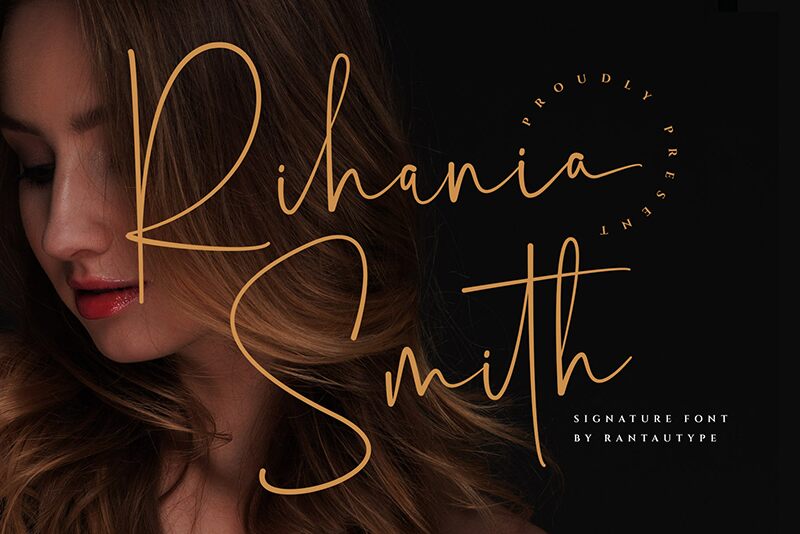
Rihania Smith
Rihania Smith font by RantautypeStudio is a light handwritten font that mimics a signature style with an organic flow and a personal touch. It carries elegant minimalist letters with curved outlines and thin strokes. Its modern appearance makes it capable of serving multiple projects that are meant to leave an impression.
Rihania Smith is suitable for stationery products, invitations, greeting cards, business cards, resumes, packaging designs, story covers, posters and flyers. Other uses extend to logos and branding designs for fashion businesses in particular as well as shop signs among others. It is free for all users so you can apply it today and enjoy this high-quality typeface!